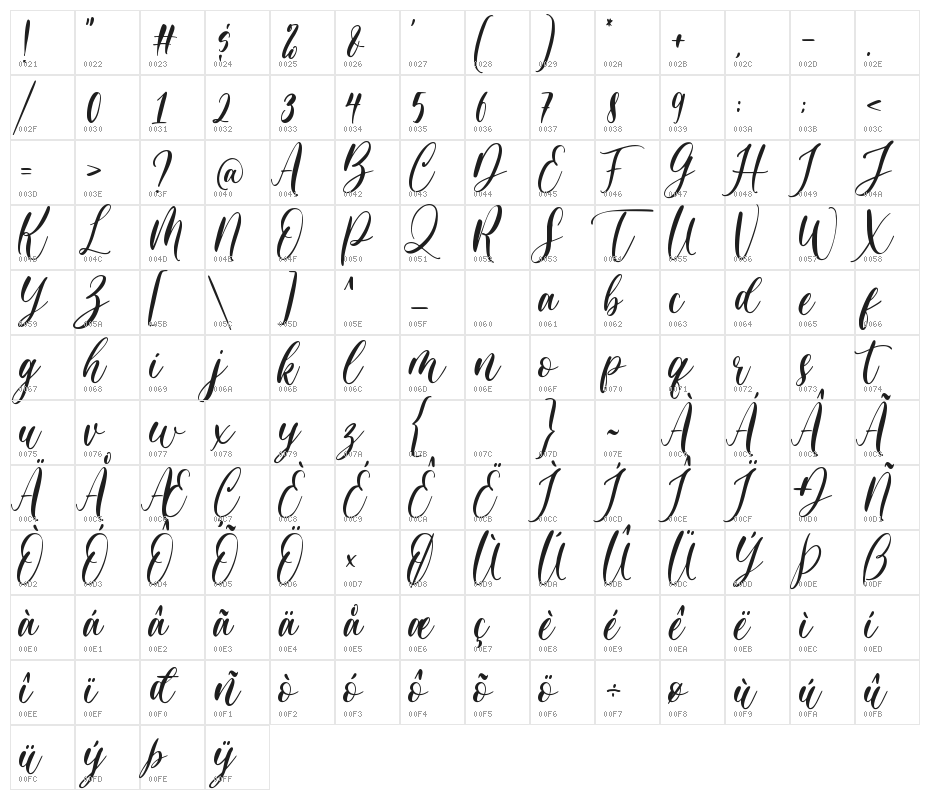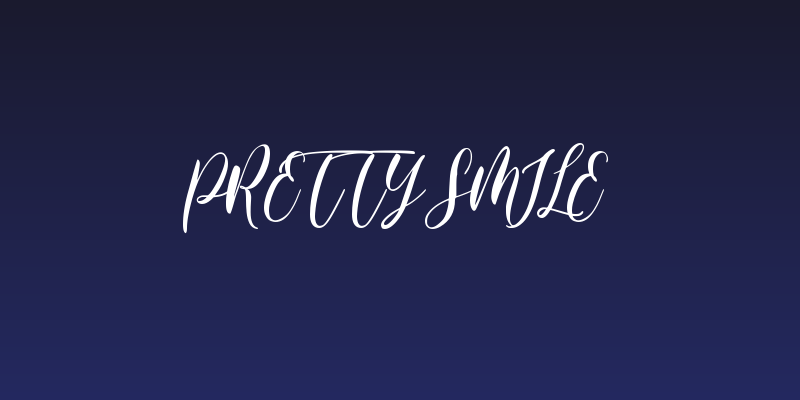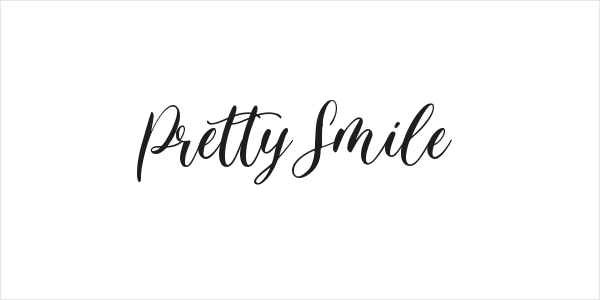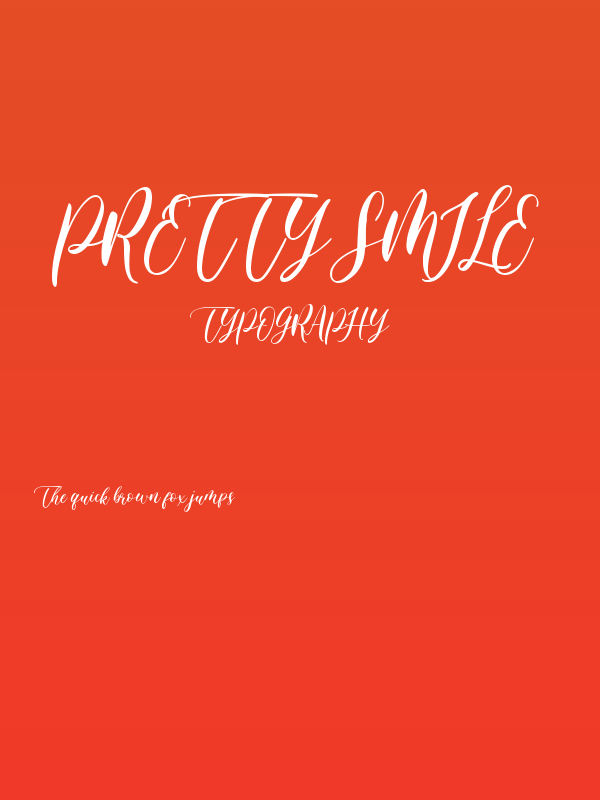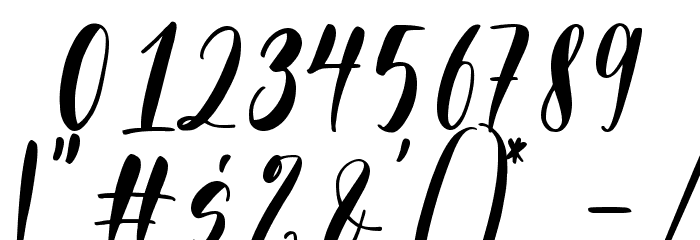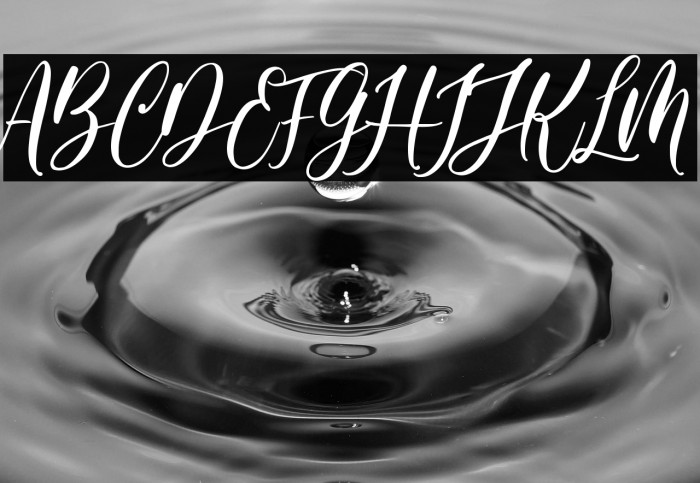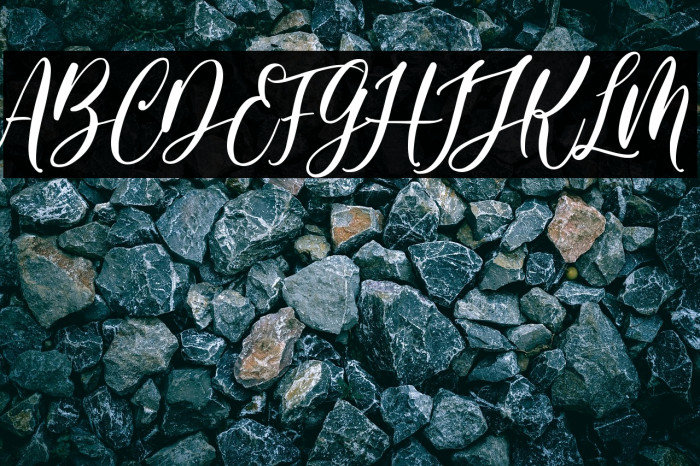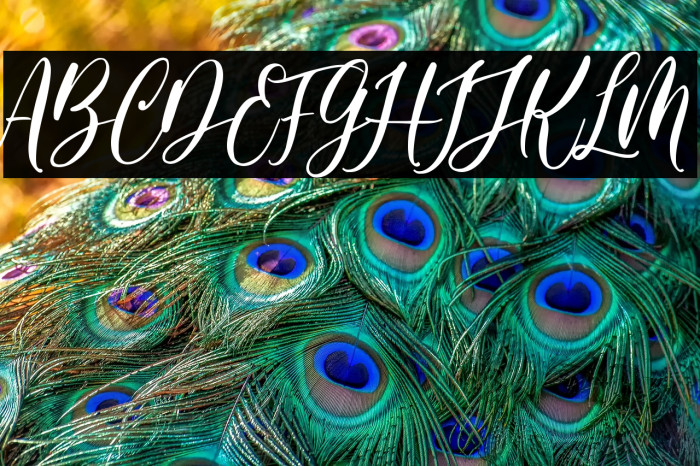
Pretty Smile Font
Pretty Smile Description
This font exudes a lively and elegant script style, characterized by its flowing, cursive letterforms. The strokes are smooth and connected, giving it a handwritten appearance that is both sophisticated and approachable. The uppercase letters are slightly more elaborate, with graceful loops and swirls, while the lowercase letters maintain a consistent rhythm and flow. The numerals and special characters are designed to complement the overall aesthetic, ensuring a cohesive look across all text. This font is perfect for projects that require a personal touch, such as invitations, greeting cards, and branding materials.
| Use Case | Logos, Invitations, Greeting cards |
| Proposed Projects | Ideal for invitations, greeting cards, branding, and personal projects. |